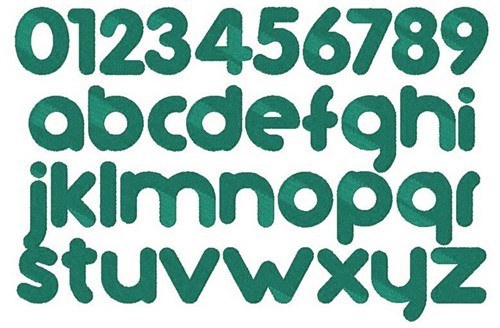
Unicorn Creatives is happy to present Crayon Embrilliance Embroidery Font - Playful Childlike Lettering - BX font machine embroidery font which has Playful, decorative machine embroidery font that mimics a crayon-like style, perfect for creative projects on children's apparel or craft items. Available in BX font and other Embrilliance formats. included. If you would like to view more embroidery fonts and alphabets please search our embroidery fonts page.
Crayon Embrilliance Embroidery Font - Playful Childlike Lettering - BX font